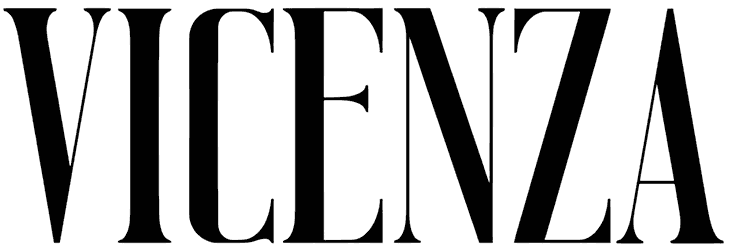
Vicenza Font
You can take a step forward in designing graphic content and optimizing your designs by utilizing a serif font such as Vicenza in posters, invitations, logos, announcements, brochures, and gift cards, so don’t underestimate this font. Since it shares a sense of formality, confidence, professionalism, and trustworthiness, the lack of lowercase letters and numbers won’t be a significant problem.